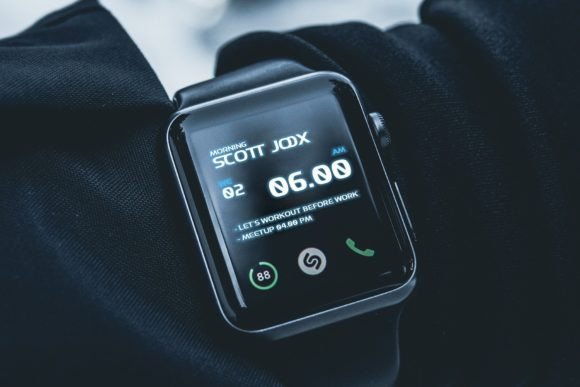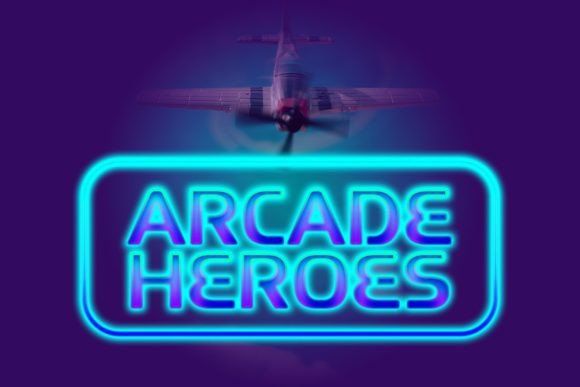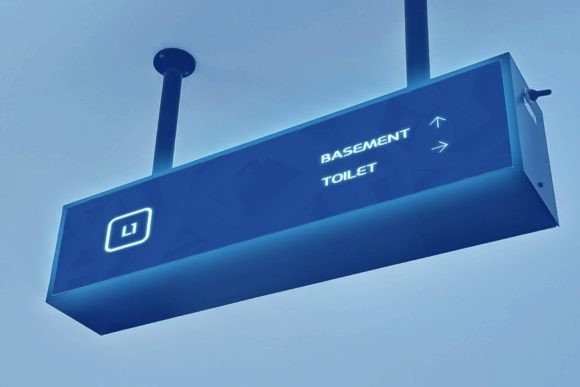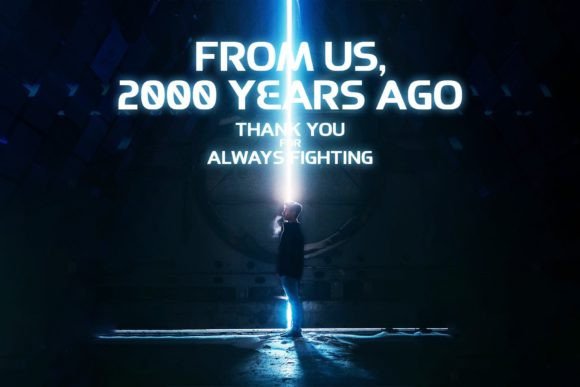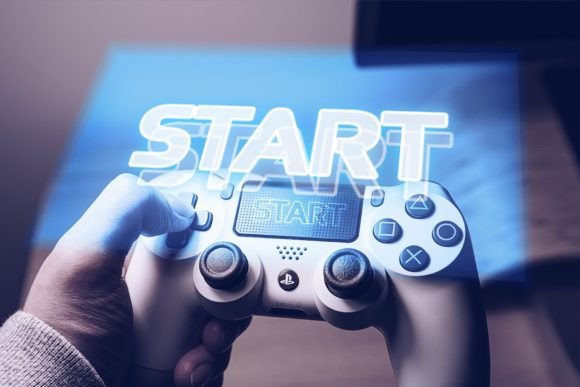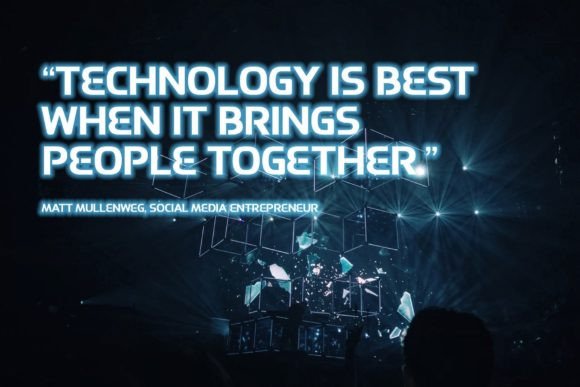
Introduction to Moeda Font Font
Fonts play a crucial role in design, and the Moeda Font font is a typeface that brings both character and versatility to any project. Whether you’re working on a branding project, a website, or a print design, the Moeda Font font offers a unique style that can elevate your work.
Moeda is a new sans serif font offering all the basic styles you will need for a successful project.
Key Features of Moeda Font Font
Why Choose Moeda Font Font?
The Moeda Font font is more than just a typeface – it’s a design tool that helps you communicate your message with style and clarity. Its unique character set and versatile design make it suitable for a wide range of applications, from elegant invitations to bold headlines.
With its carefully crafted letterforms and balanced proportions, the Moeda Font font ensures readability and visual appeal across all mediums.
What makes Moeda Font font special?
The Moeda Font font stands out with its unique design, exceptional readability, and versatility across various design applications.